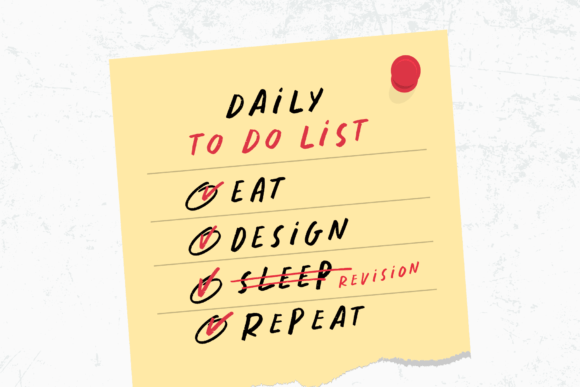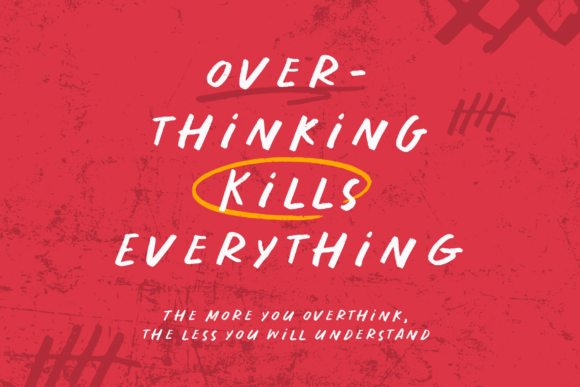
Diary Notes Font
Diary Notes is a fun and organic handwritten font. Write down your daily thoughts and plans with this scribble font inspired by handwritten diary notes. Whether you’re planning a late-night adventure or meeting friends for brunch, this font makes you want to get out there and go!